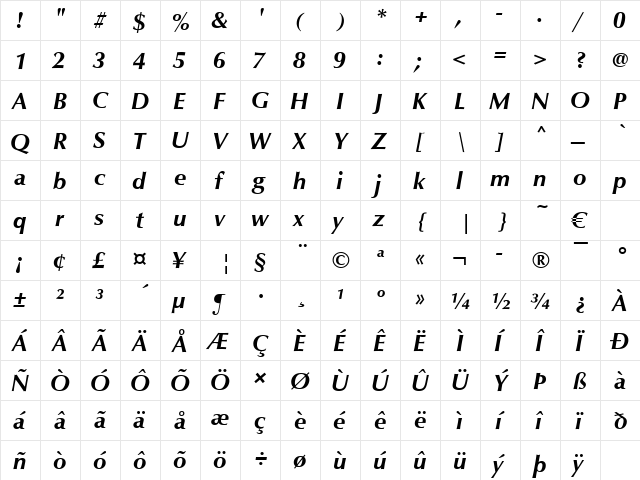
URW Classico Bold Italic
Design Context for URW Classico Typeface
URW Classico has the warm character of retro typography — evoking diners, record sleeves, and the golden age of print advertising. The slanted form adds forward momentum and visual energy. The heavy weight commands attention and anchors typographic hierarchies.
Perfect for vintage-inspired branding, retro packaging, nostalgia campaigns, and period-accurate editorial design.
Font Pairing: Combine URW Classico with a simple slab or neutral sans — period-accurate companions reinforce the vintage feel without competing for attention.
Pro Tip: Use URW Classico for headlines and pull quotes rather than body copy — its personality is best appreciated in short, focused bursts.